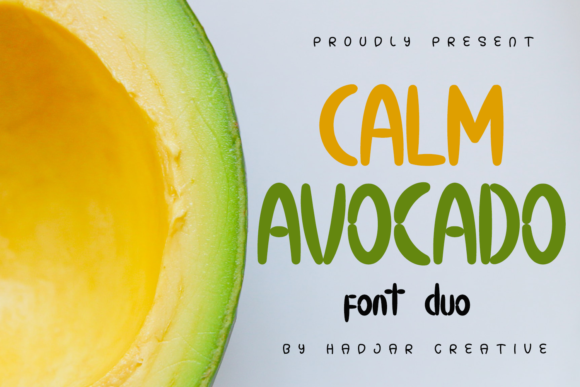
The Calm Avocado Font: A Game-Changer for Your Design Projects
I’ll never forget the time I was working on a branding project for a trendy wellness cafe. I had spent hours perfecting the logo, but something was off. The font I had chosen just wasn’t giving me the vibe I was going for – it was too serious, too bold, too… boring. That’s when I stumbled upon the Calm Avocado font, and let me tell you, it was love at first sight! ✨
This fun and versatile display font has become a staple in my design library, and I’m excited to share its awesomeness with you. Whether you’re a designer, crafter, or creative hobbyist, Calm Avocado is sure to elevate your creations and bring a touch of personality to your projects.
- ✨ Unique and eye-catching design that’s perfect for making a statement
- ✅ Highly versatile and can be used for a wide range of projects, from branding and advertising to packaging and more
- 💬 Excellent for headlines, titles, and short paragraphs of text
- 🎨 Comes with a range of OpenType features, glyphs, and stylistic alternates to give you even more creative control
A Few Quirks to Keep in Mind
- 🤔 May not be the best choice for body text or long paragraphs, as it can be a bit too ornate
- ⚠️ Some characters may not render perfectly at very small font sizes
The Story Behind Calm Avocado
Calm Avocado was designed by a team of creatives who wanted to create a font that would bring a touch of personality and whimsy to design projects. Inspired by the laid-back vibe of California, the font features a unique blend of modern and playful elements. Whether you’re designing a logo, brochure, or social media graphic, Calm Avocado is the perfect choice.
Q: What type of projects is Calm Avocado best suited for?
A: Calm Avocado is perfect for a wide range of projects, including branding, advertising, packaging, and more. It’s especially great for headlines, titles, and short paragraphs of text.
Q: Does Calm Avocado come with OpenType features and glyphs?
A: Yes! Calm Avocado comes with a range of OpenType features, glyphs, and stylistic alternates to give you even more creative control.